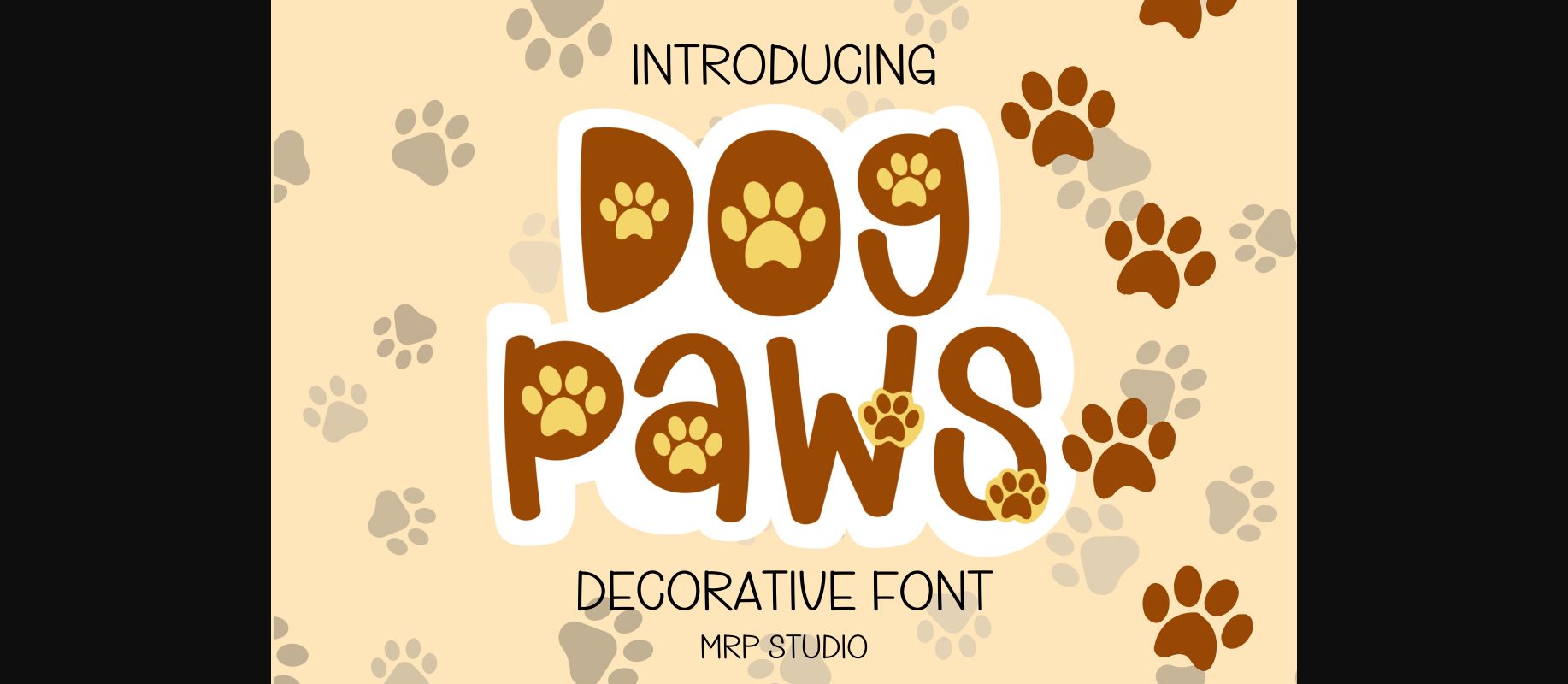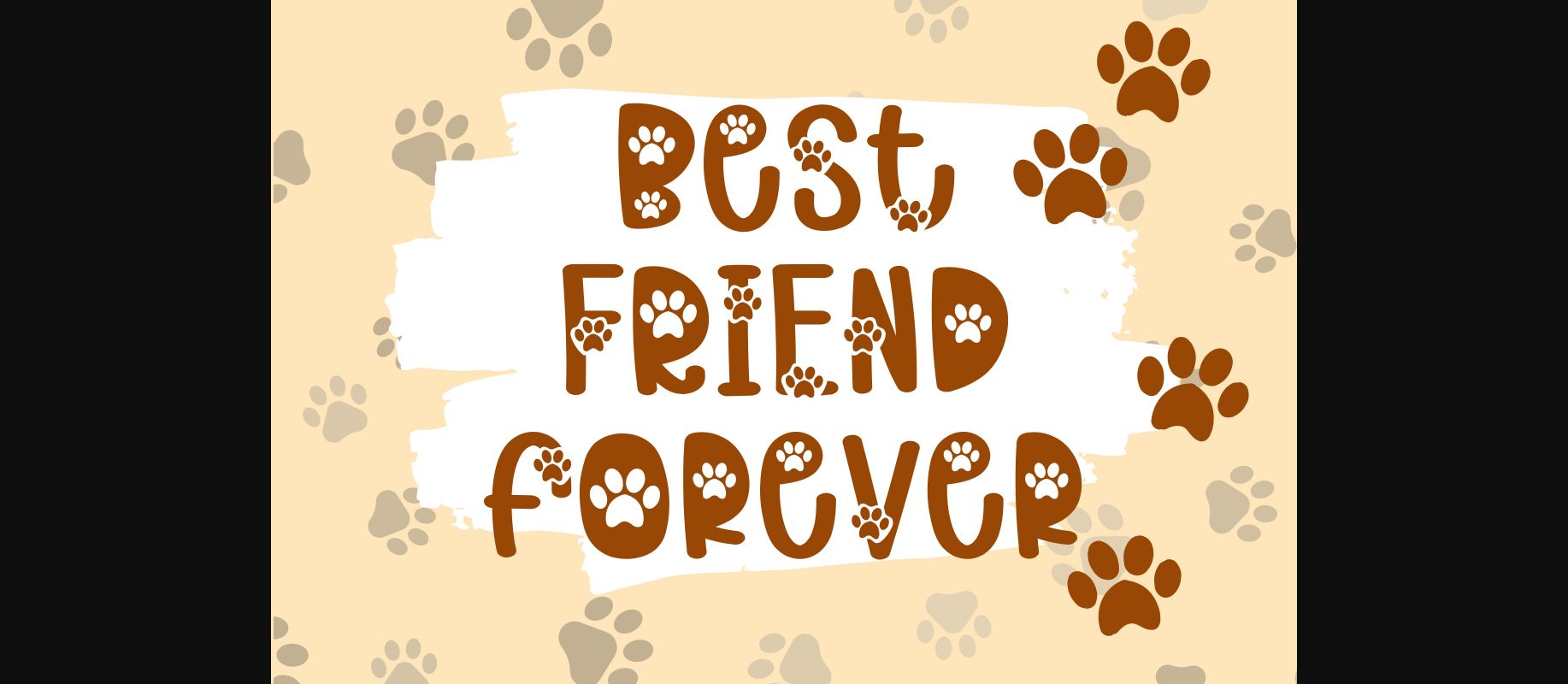
About Dog Paws Font
Meet the playful and eye-catching “Dog Paws” font! With its decorative design featuring adorable dog paws, this font exudes a sense of fun and energy, perfect for adding a touch of playfulness to any project related to pets or animals. Its unique style and attractive look make it the ideal choice for packaging, posters, and digital designs that aim to create a lighthearted and engaging atmosphere.